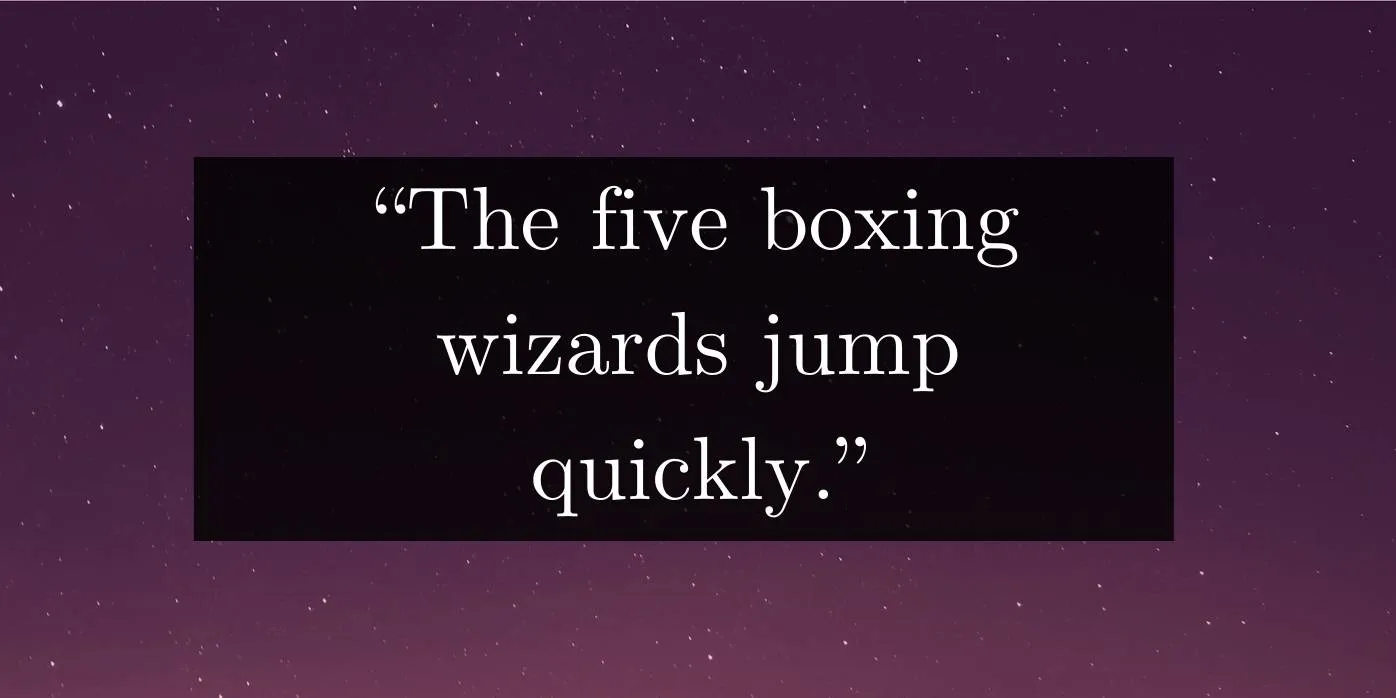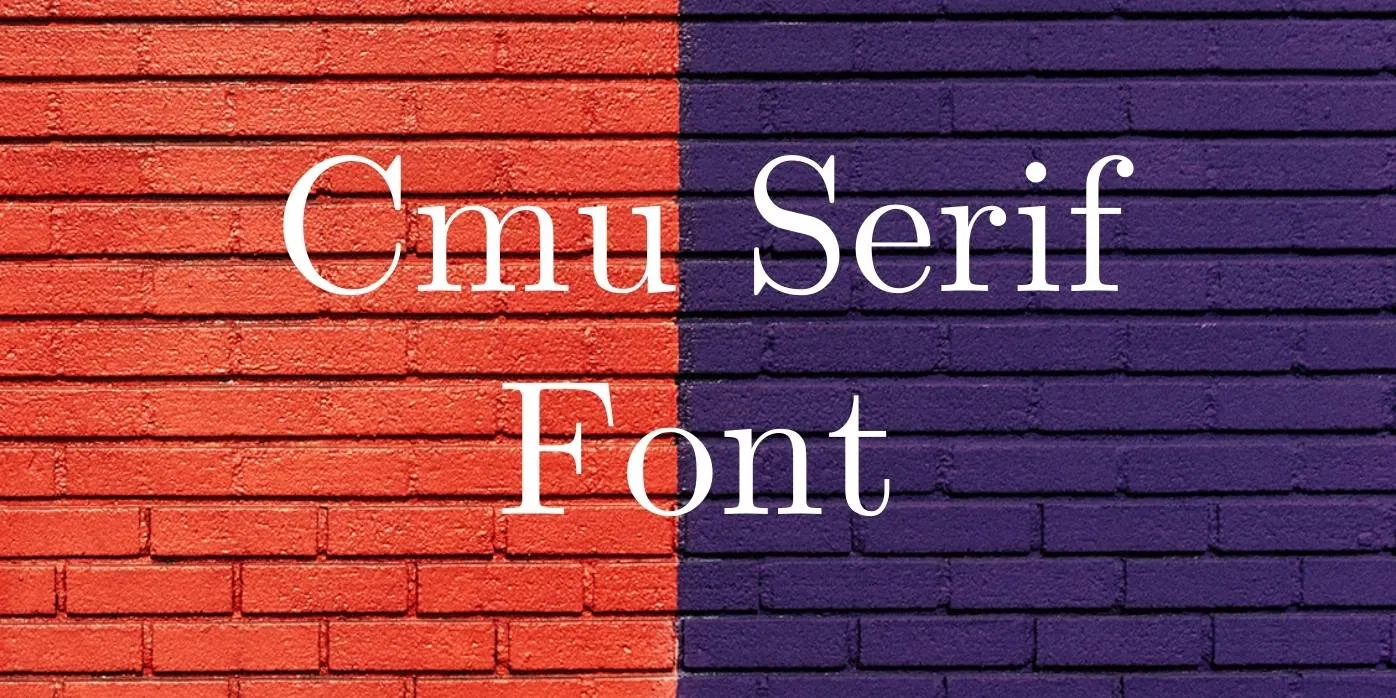
CMU Serif Font
CMU Serif Font is a serif typeface that was designed by Donald E. Knuth. It is named after Carnegie Mellon University, where Knuth taught computer science. This cute font was designed to be used in documents that are read on screens, such as web pages and e-books.
This awesome font is a free and open-source font. Its unique Glyphs design makes it perfect for documents that need to be readable on screens. The best thing about this font is that it’s available in Regular, Bold, and Italic versions. It has keen and clean features.
This amazing typeface is best for CSS and SVG. For more features use its similar Neutra Text Font. So, if you are looking for a beautiful and legible serif typeface for your web pages or e-books, then CMU Serif Font is perfect and suitable for your designs. Its generator tool is best for a lot of interesting designs